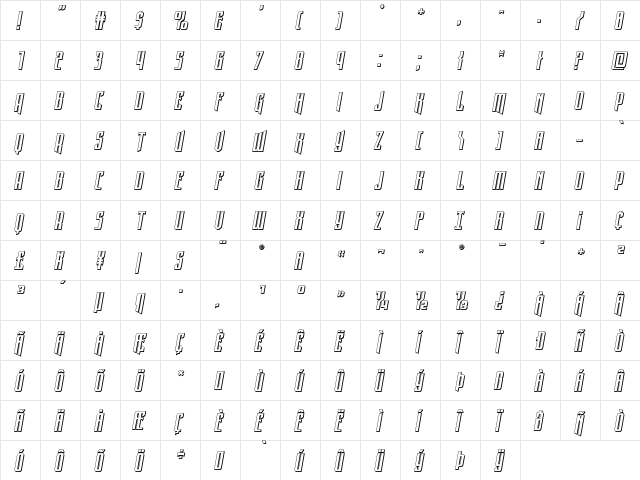
Night Traveler 3D Italic Regular
Design Context for Night Traveler 3D Italic Typeface
Night Traveler 3D Italic is a composed and adaptable typeface that performs quietly and consistently across a wide range of design contexts. Its italic angle brings a sense of urgency and motion to the letterforms.
Pro Tip: Try Night Traveler 3D Italic for annotation and caption copy alongside an upright companion — the contrast in angle creates a dynamic but ordered typographic system.